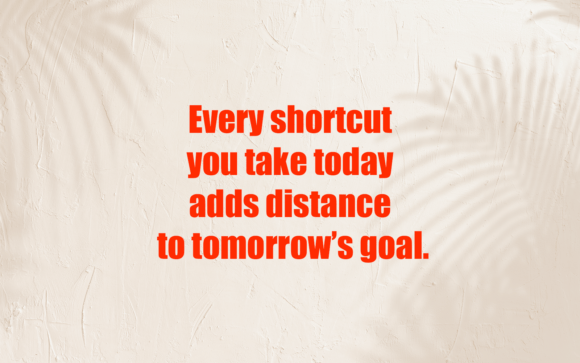
The Perfect Touch for Your Design: Introducing the Bladex Font
Do you remember the moment when a single font choice transformed your design from bland to brilliant? For many designers, this moment is a game-changer. It’s the difference between a logo that gets noticed and one that gets lost in the crowd. Whether you’re working on a personal project or a client’s branding, the right font can elevate your entire design.
That’s where the Bladex Font comes in. This lovely and timeless sans serif font is a designer’s dream come true. With its unique and beautiful touch, it adds a level of sophistication and elegance to any design. From eye-catching logos to memorable quotes, the Bladex Font is the perfect choice for creating a lasting impression.
As a valuable addition to any designer’s toolkit, the Bladex Font is a must-have for anyone looking to take their designs to the next level.
Bladex Font Key Features
- Font Family: Bladex is a sans-serif font family designed for modern and clean typography.
- Character Set: Includes a wide range of characters, including Latin, Cyrillic, and Greek alphabets, as well as a variety of symbols and punctuation marks.
- Unique Characteristics: Bladex features a unique blend of modern and minimalist design elements, with clean lines, geometric shapes, and a subtle x-height to create a highly legible and visually appealing font.
Bladex Font Review
I’ve had the chance to work with the Bladex font, and I must say it’s an interesting choice. While it has its strengths, there are also some areas where it falls short.
- Unique aesthetic: The Bladex font has a distinct, modern look that sets it apart from more traditional font options.
- High legibility: The font is easy to read, even at smaller sizes, making it a good choice for body text.
- Good for digital use: Bladex is well-suited for digital displays, such as websites and mobile apps.
- Limited versatility: While the font works well for digital use, it may not be the best choice for print materials or more formal documents.
- Not ideal for complex text: The font’s unique style can make it difficult to read when used for complex or technical text.
Overall, I think the Bladex font is a solid choice for digital projects where a modern, clean aesthetic is desired. However, it may not be the best fit for every project, and its limitations should be carefully considered.
Tips for Getting the Most Out of Bladex Font
To get the most out of Bladex Font, use it in bold and italic styles to add emphasis to your text. You can also combine Bladex Font with other fonts to create a unique and visually appealing design.
Bladex Font is commonly used for:
- Quote and text overlays
Alternatives to Bladex Font
Monserrat is a modern sans-serif font designed for digital media. It is ideal for use in digital interfaces, web design, and mobile applications. Montserrat is more geometric and has a higher x-height compared to Bladex Font, making it more suitable for reading in digital environments.
Comparison: Montserrat has a more modern and sleek feel, whereas Bladex Font has a more vintage and elegant look.
Open Sans is a clean and modern sans-serif font designed for digital use. It is highly legible and suitable for a wide range of applications, including web design, mobile apps, and digital publications. Open Sans is more rounded and has a friendly feel, making it more approachable than Bladex Font.
Comparison: Open Sans is more legible and versatile, whereas Bladex Font has a more distinctive and elegant feel.